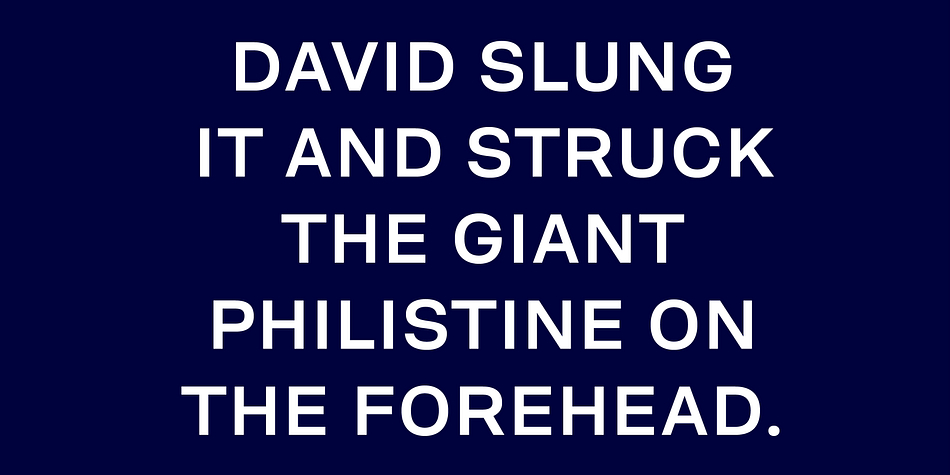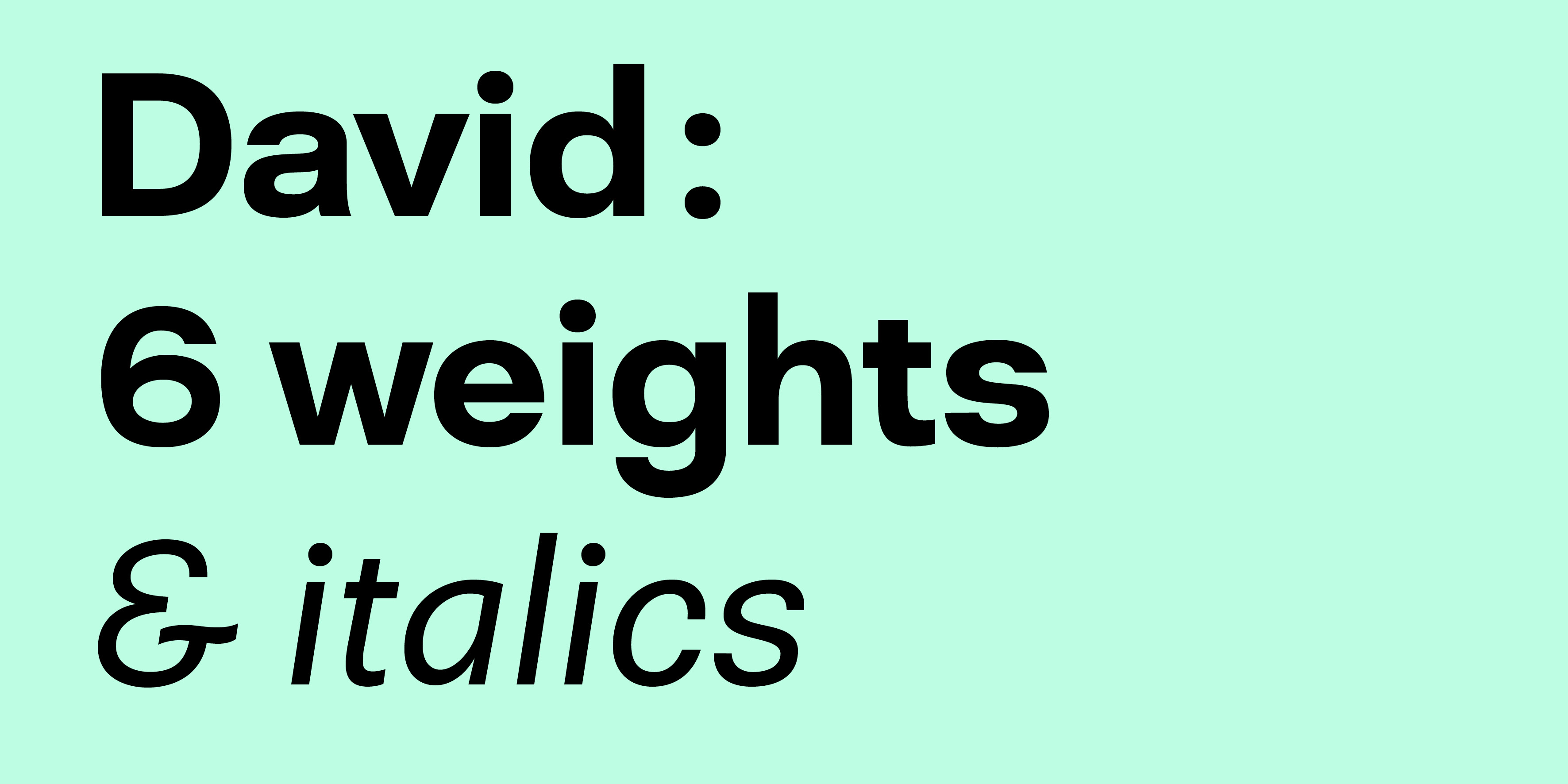
David
Designed by Émilie Rigaud, David is a sans serif font family. This typeface has twelve styles and was published by A is for...
David is a sans-serif typeface, looking sturdy and stable but keeping a slingerly spirit, that fits with its foundry companions.
It does not fear the difficulties and has therefore equipped itself with a proper italic.
In front of the diversity of typographic offer, David stands alone, as the homonymous statue sculpted by Michelangelo in a block of marble rejected by other people because of its flaws.
This statue had been placed in front of the palazzo Vecchio to symbolize the determination of the young Florentine republic facing surrounding tyrants.
Supported by an extended family of 6 weights, standing firm, of a generous width, the David typeface stands up to merciless giants and philistines of all kinds.
Displaying the beauty and characteristics of the David font family.